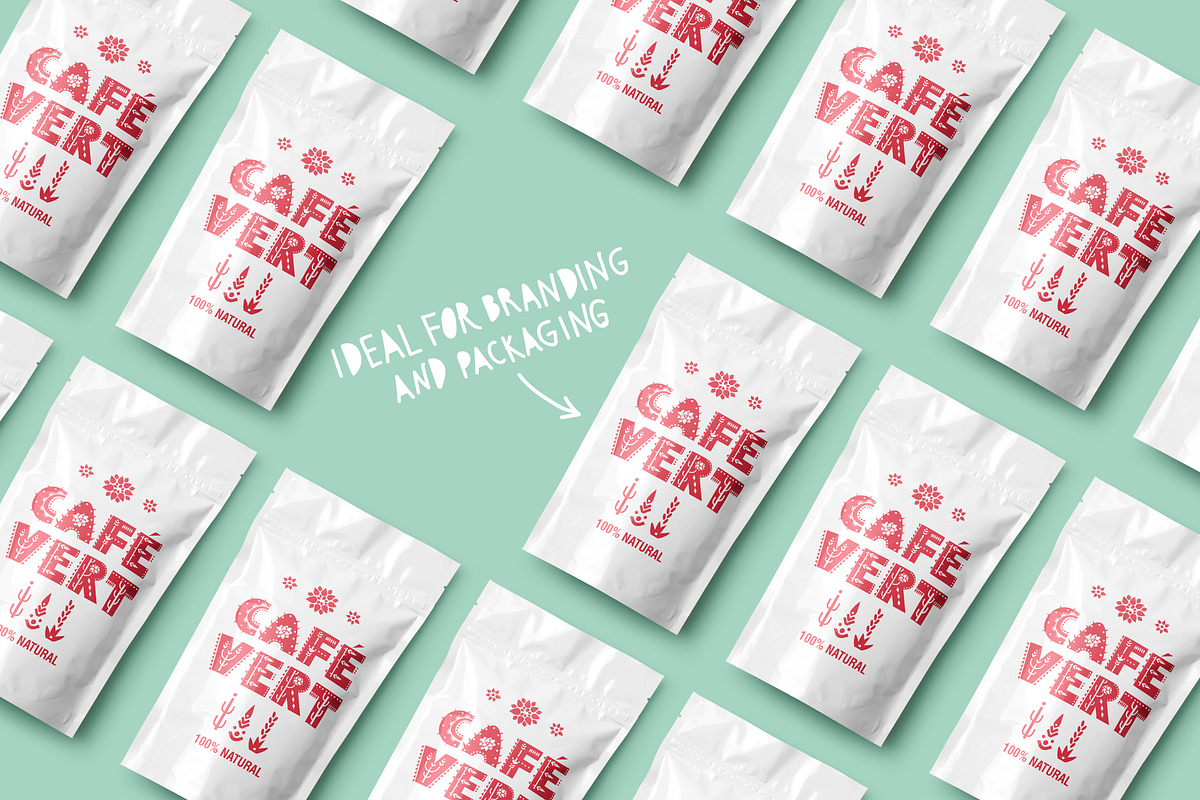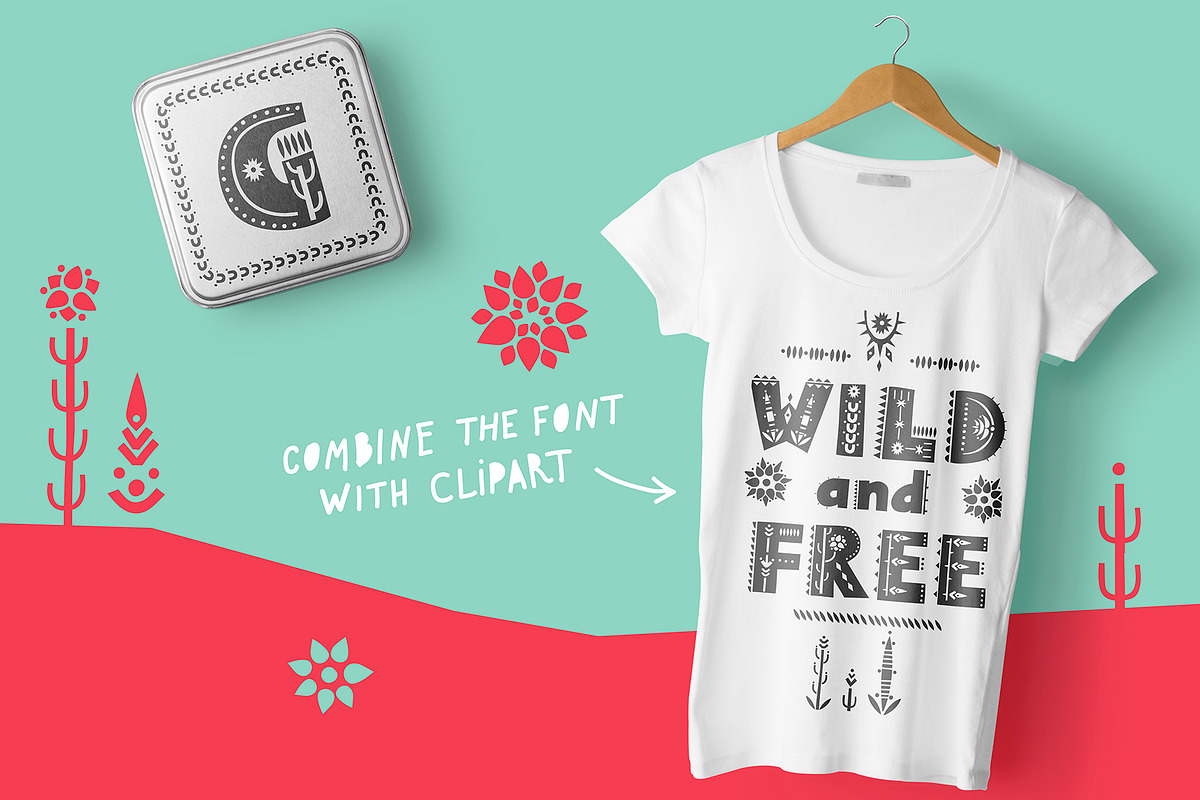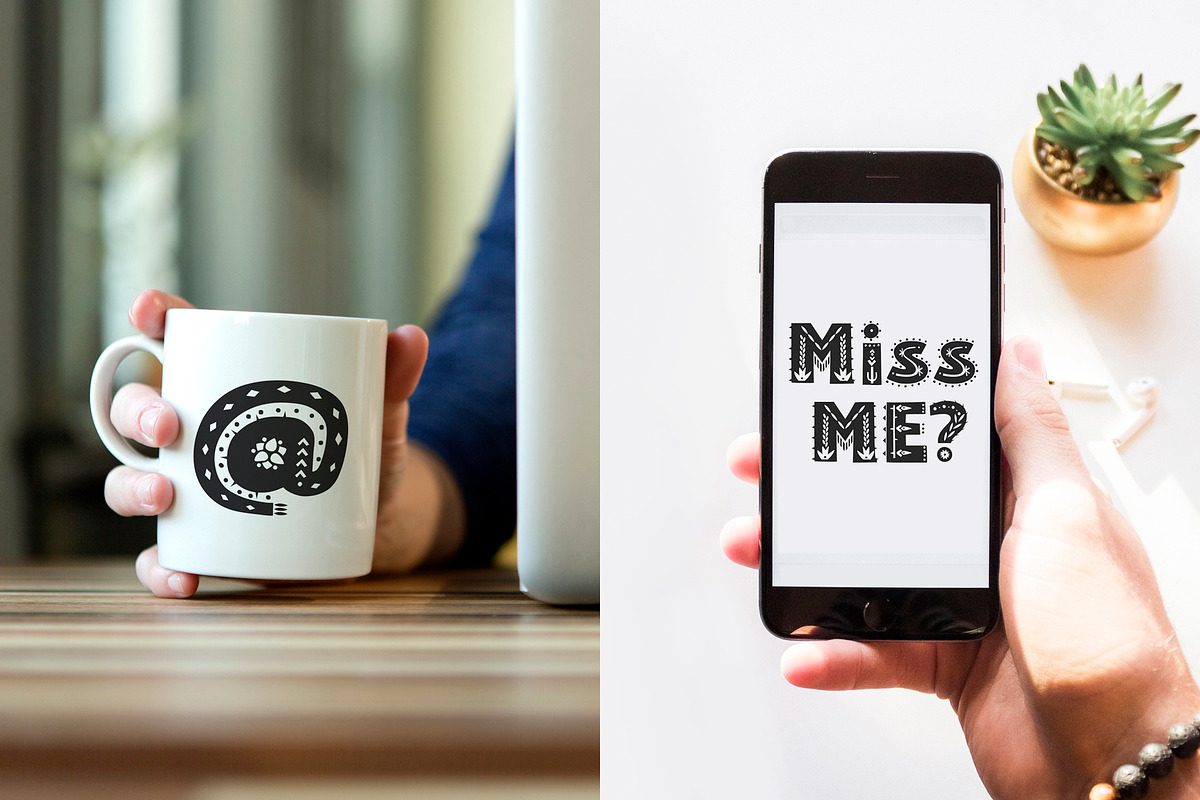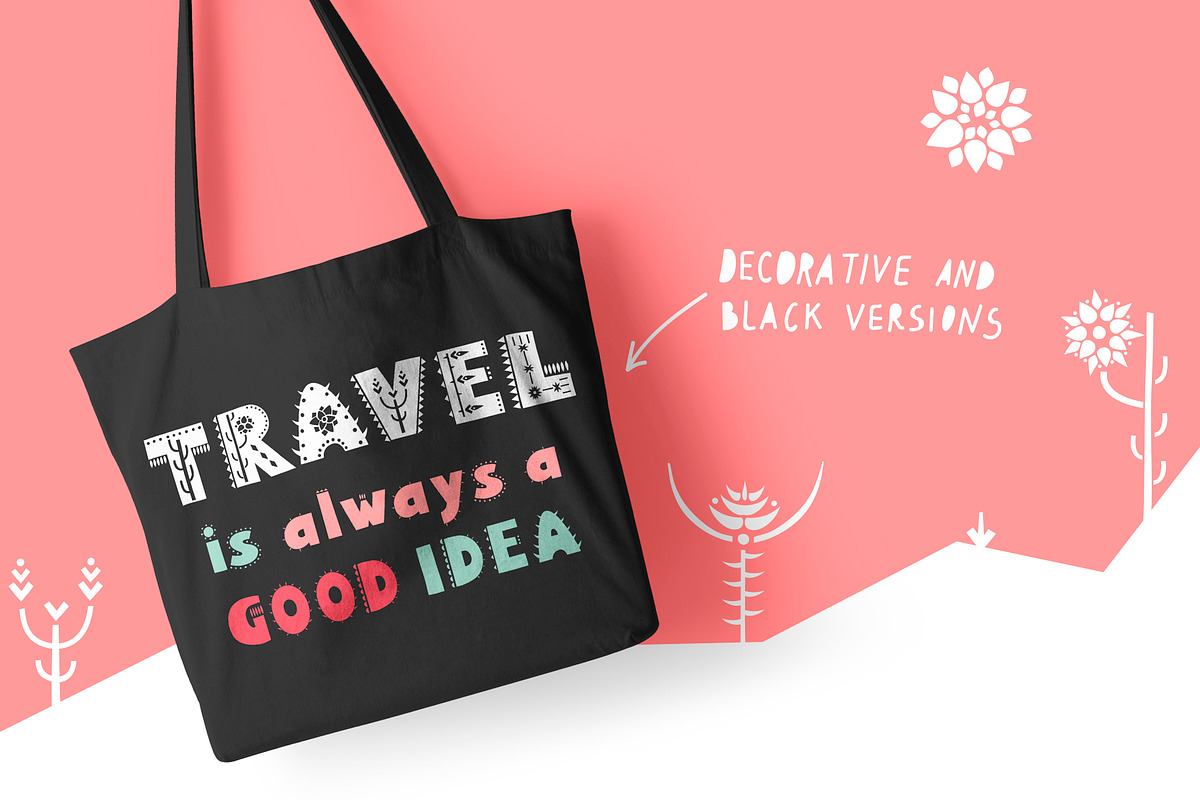
Mexico - Font Family
Hey there! Do you want to create an interesting and unusual design using only letters? If so, then I want to introduce you my Mexico font family. The letters of the display font are decorated with floral ornaments based on Mexican landscapes.
The typeface is presented in two fonts: decorative and black. Also the product includes a small clipart with stylized desert plants. You can combine letters with clipart and get your unique design.
Mexico font is easy to use with other design programs or with out program. You can create cool prints on clothes and photo overlays. You can also use this font in the packaging and branding of your business.
- Mexico Decorative
- Mexico Black